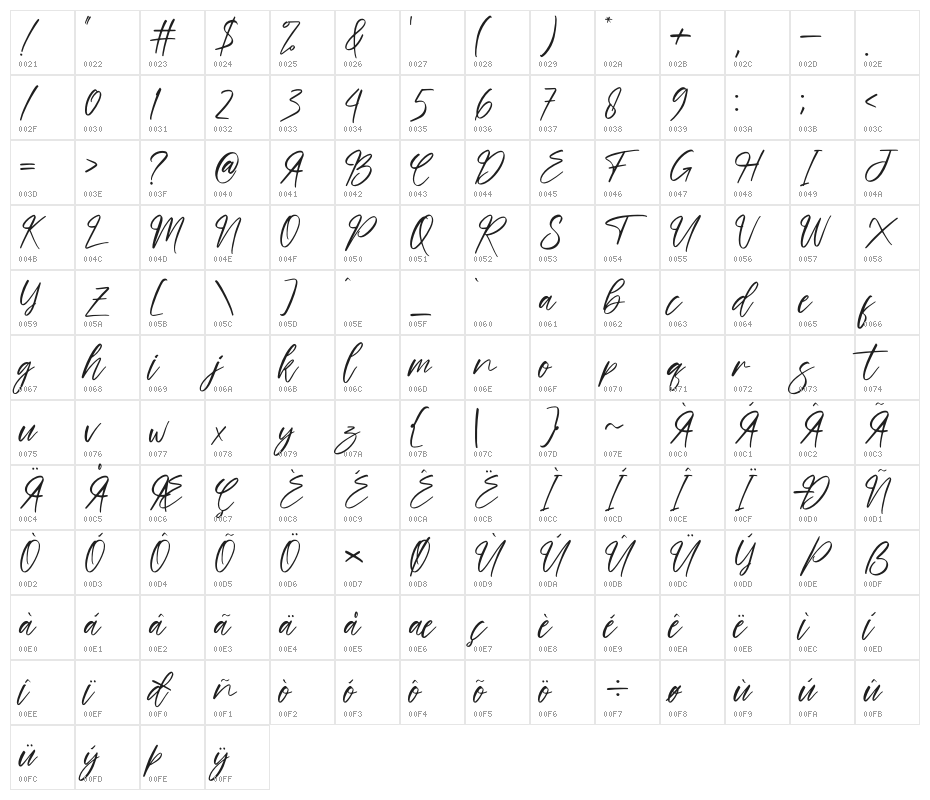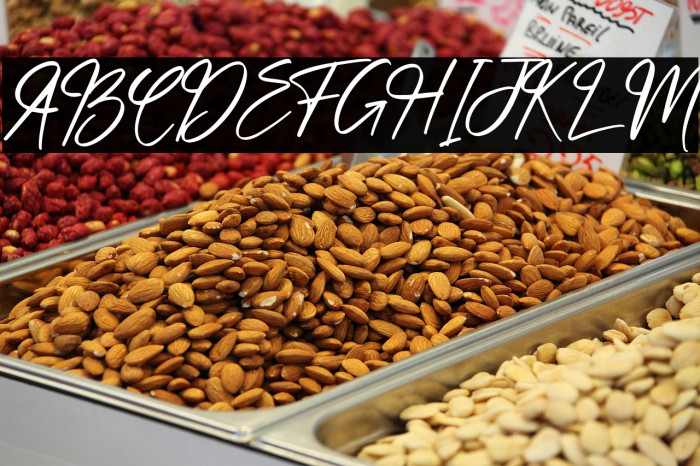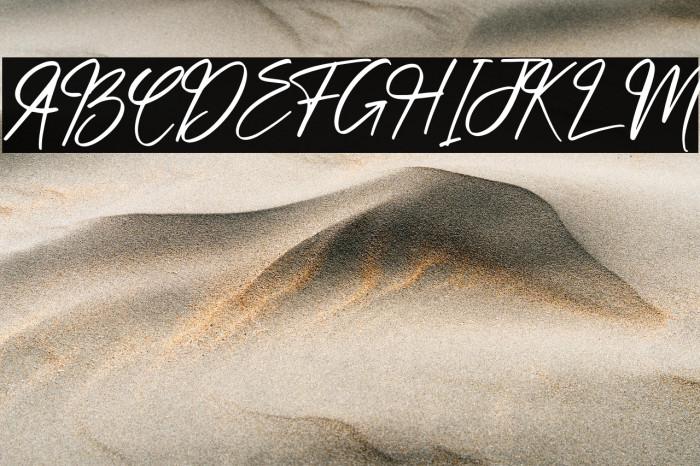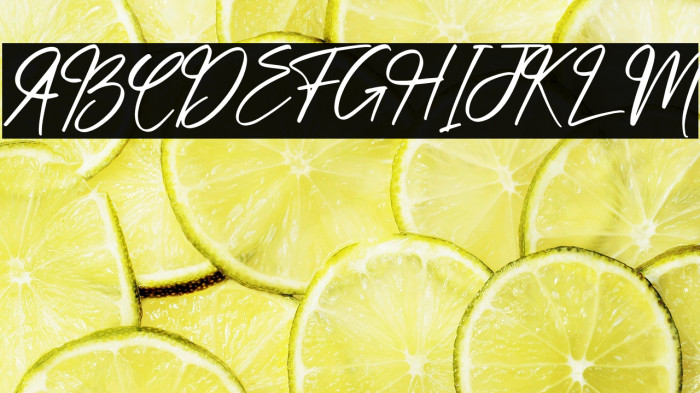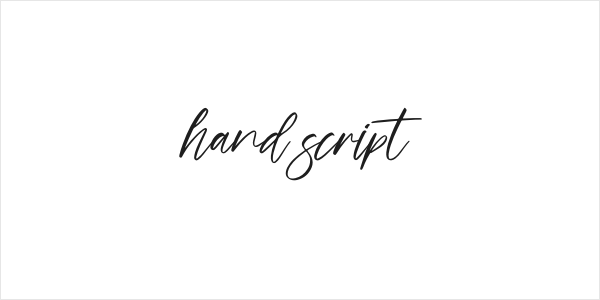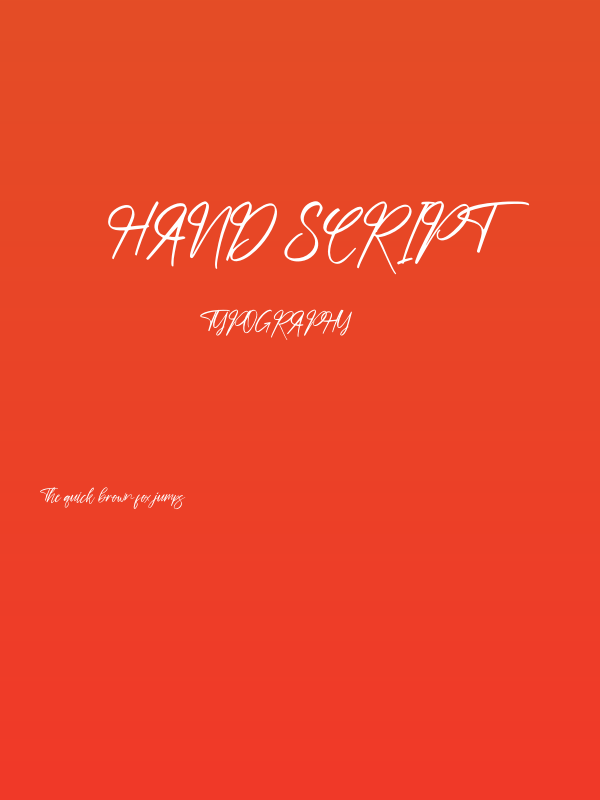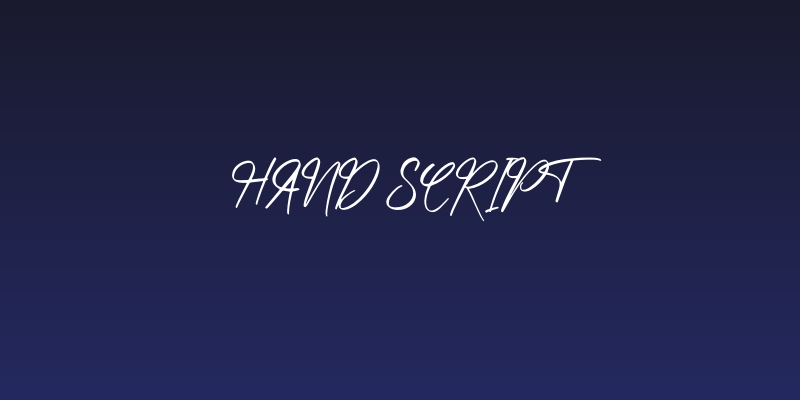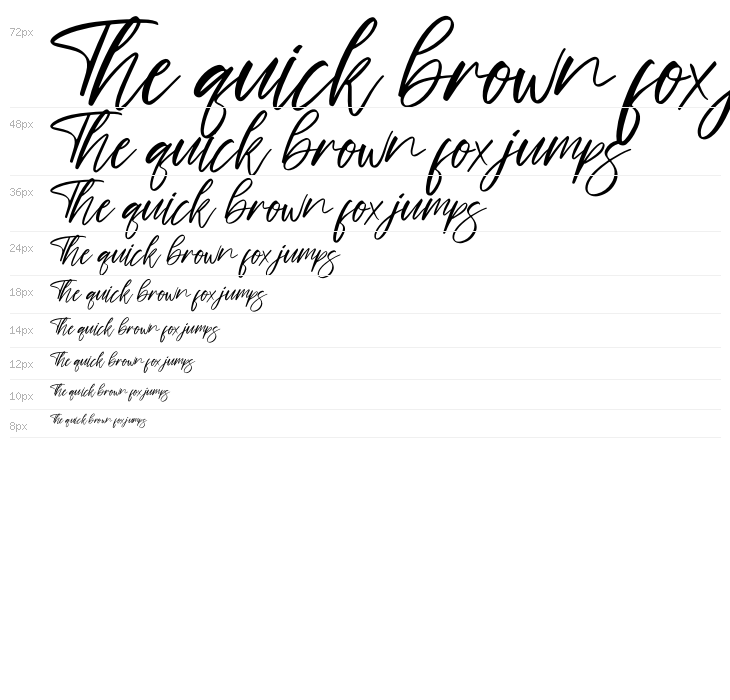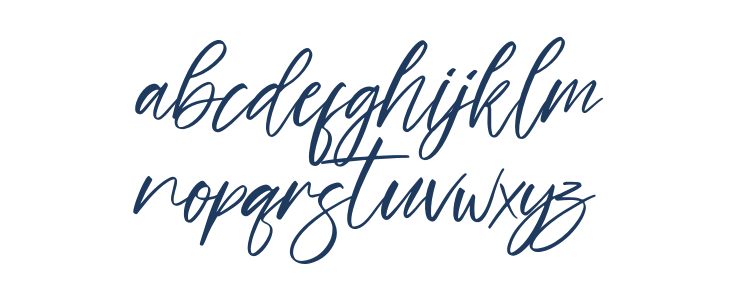
hand script Font
hand script Description
This font features a dynamic and fluid script style, reminiscent of elegant handwriting. The letters are connected with smooth, flowing strokes that give a sense of movement and grace. The uppercase characters are slightly more structured, maintaining a balance between formality and casual flair. The lowercase letters are more freeform, with varying heights and slants that add to the overall expressive nature of the font. Numbers and special characters are designed to match the script's lively style, ensuring consistency across all elements. This font is perfect for projects that require a personal touch or a sense of sophistication.
| Overall Style | Elegant, Expressive |
| Use Case | Logos, Invitations, Personal Branding |
| Proposed Projects | Ideal for wedding invitations, greeting cards, personal branding, and elegant packaging. |